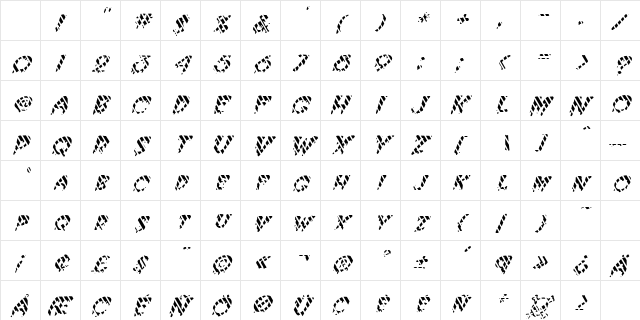
FZ UNIQUE 10 STRIPED ITALIC Normal
Design Context for FZ UNIQUE 10 STRIPED ITALIC
FZ UNIQUE 10 STRIPED ITALIC is a composed and adaptable typeface that performs quietly and consistently across a wide range of design contexts. The slanted form adds forward momentum and visual energy.
Pro Tip: Use FZ UNIQUE 10 STRIPED ITALIC for emphasis, pull quotes, and subheadings where its slanted energy can add rhythm to the layout.